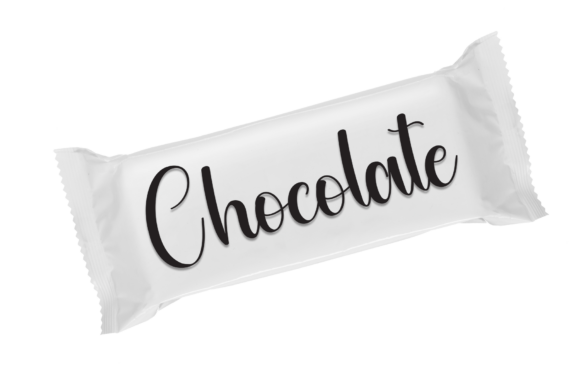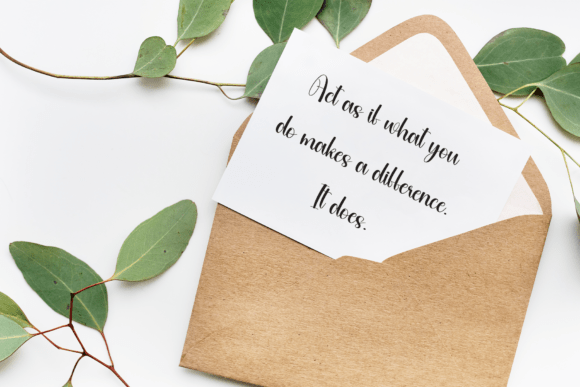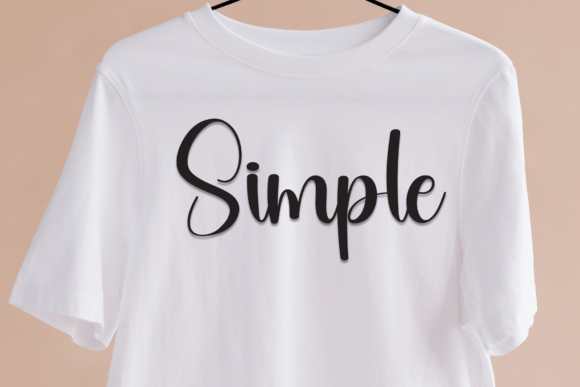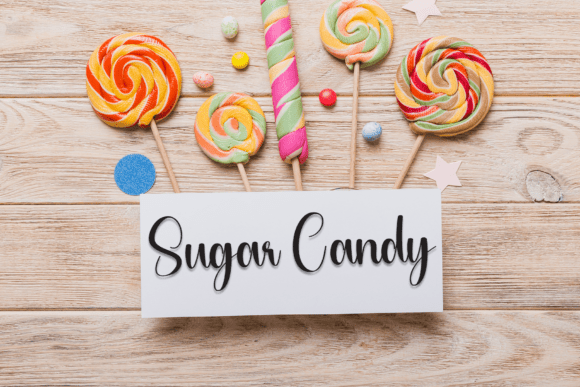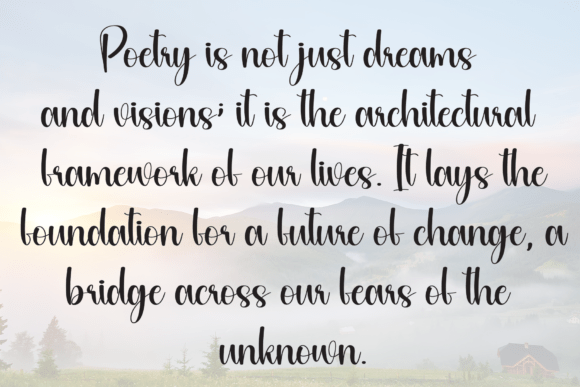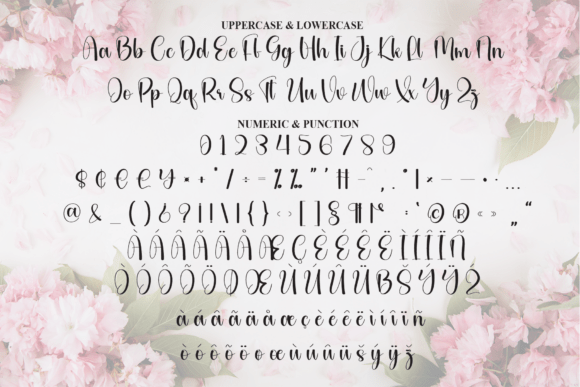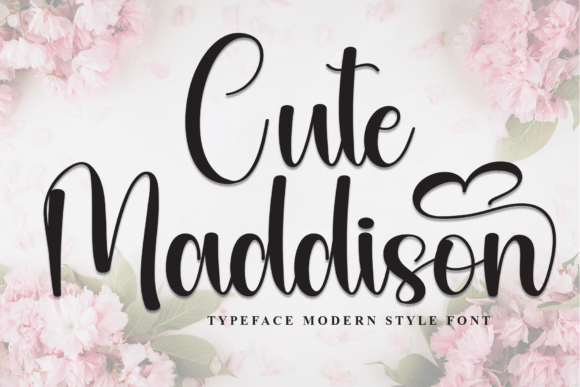
Cute Maddison Font: Elevate Your Designs with a Touch of Elegance
In the world of typography, a font can make or break the aesthetic of a design. For those seeking a charming script handwritten font that brings a personal, elegant touch to their creations, look no further than Cute Maddison. This beautiful font is designed to add a smooth, natural flow to your designs, making it perfect for a variety of applications, from wedding invitations to lifestyle blog graphics.
The Characteristics of Cute Maddison Font
Cute Maddison is a script font that exudes elegance and sophistication. Its smooth curves and natural flow give it a slightly casual style, making it feel like it was written with care. This font is characterized by its:
• Smooth Curves: Cute Maddison features smooth, flowing curves that give it a soft, romantic feel.
• Natural Flow: The font’s natural flow makes it feel like it was written by hand, adding a personal touch to your designs.
• Slightly Casual Style: Cute Maddison’s slightly casual style makes it versatile and suitable for a wide range of design applications.
Ideal Applications for Cute Maddison Font
Cute Maddison is an incredibly versatile font that can be used in a variety of design applications. Some of the ideal uses for this font include:
• Wedding Invitations: Add a touch of elegance and romance to your wedding invitations with Cute Maddison.
• Personal Branding: Use Cute Maddison to create a personal and sophisticated brand identity.
• Greeting Cards: Make your greeting cards stand out with the beautiful, handwritten style of Cute Maddison.
• Lifestyle Blog Graphics: Add a touch of elegance to your lifestyle blog graphics with Cute Maddison.
Versatility in Romantic and Modern Aesthetics
One of the standout features of Cute Maddison is its versatility in both romantic and modern aesthetics. This font can be used to create a range of designs, from classic and elegant to modern and trendy.
In romantic designs, Cute Maddison shines with its smooth curves and natural flow. It’s perfect for creating beautiful wedding invitations, Valentine’s Day cards, and other romantic designs.
In modern designs, Cute Maddison can be used to add a touch of elegance and sophistication. It’s perfect for creating modern branding, social media graphics, and blog posts.
Why Choose Cute Maddison Font?
With so many fonts available, why choose Cute Maddison? Here are just a few reasons why this font stands out:
• Unique and Elegant: Cute Maddison is a unique and elegant font that will make your designs stand out.
• Versatile: This font is incredibly versatile and can be used in a wide range of design applications.
• Easy to Read: Cute Maddison is easy to read, making it perfect for body text and headlines.
• High-Quality: This font is of high quality, with smooth curves and a natural flow.
Tips for Using Cute Maddison Font
To get the most out of Cute Maddison, here are a few tips:
• Use it as a Headline Font: Cute Maddison is perfect for use as a headline font, adding a touch of elegance and sophistication to your designs.
• Pair it with a Sans-Serif Font: Pair Cute Maddison with a sans-serif font for a modern and elegant look.
• Experiment with Colors: Cute Maddison looks great in a range of colors, so don’t be afraid to experiment and find the perfect color for your design.
Cute Maddison is a charming script handwritten font that brings a personal, elegant touch to your designs. With its smooth curves, natural flow, and slightly casual style, it’s perfect for a wide range of design applications. Whether you’re creating wedding invitations, personal branding, or lifestyle blog graphics, Cute Maddison is a great choice. Its versatility in both romantic and modern aesthetics makes it a valuable addition to any designer’s toolkit.